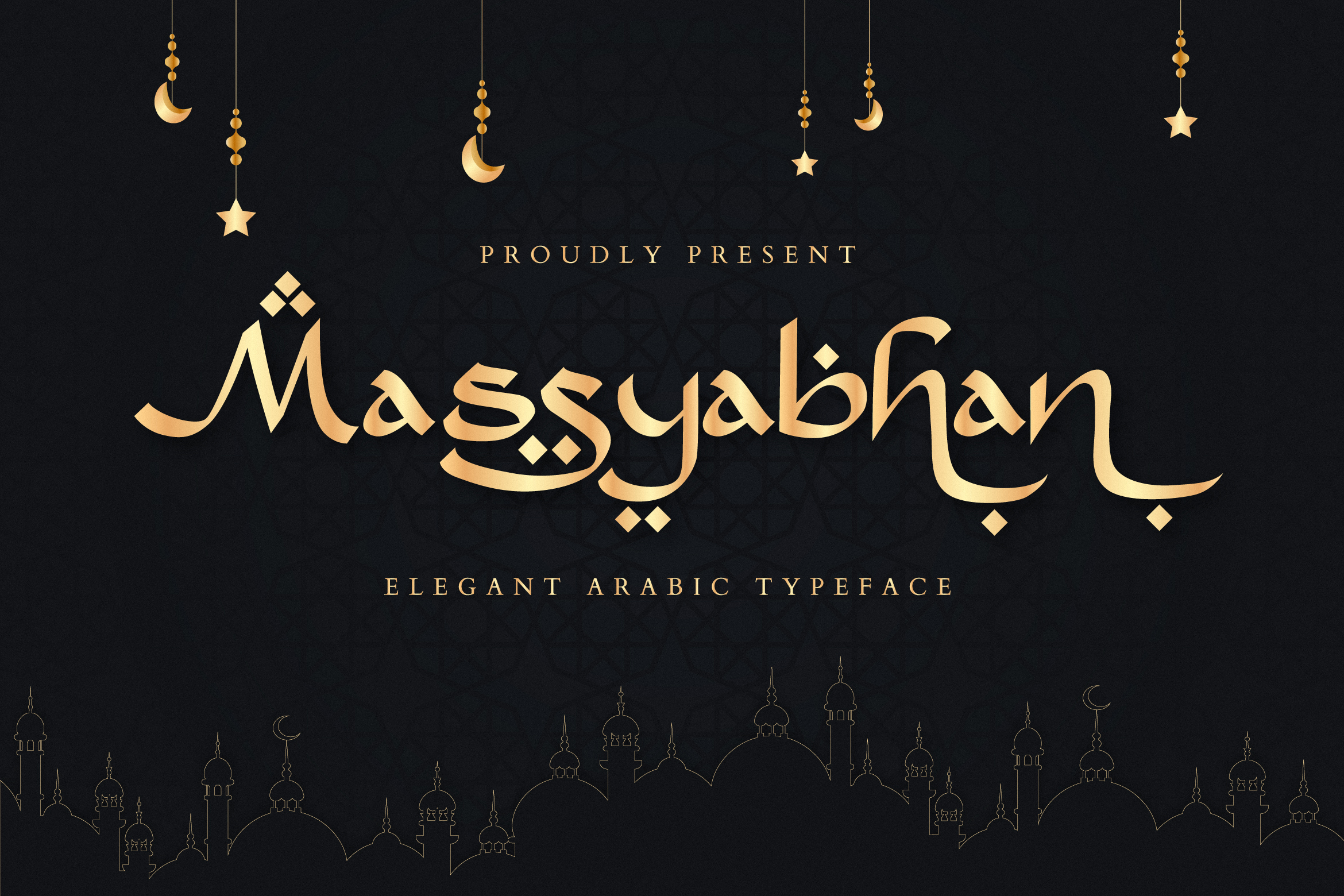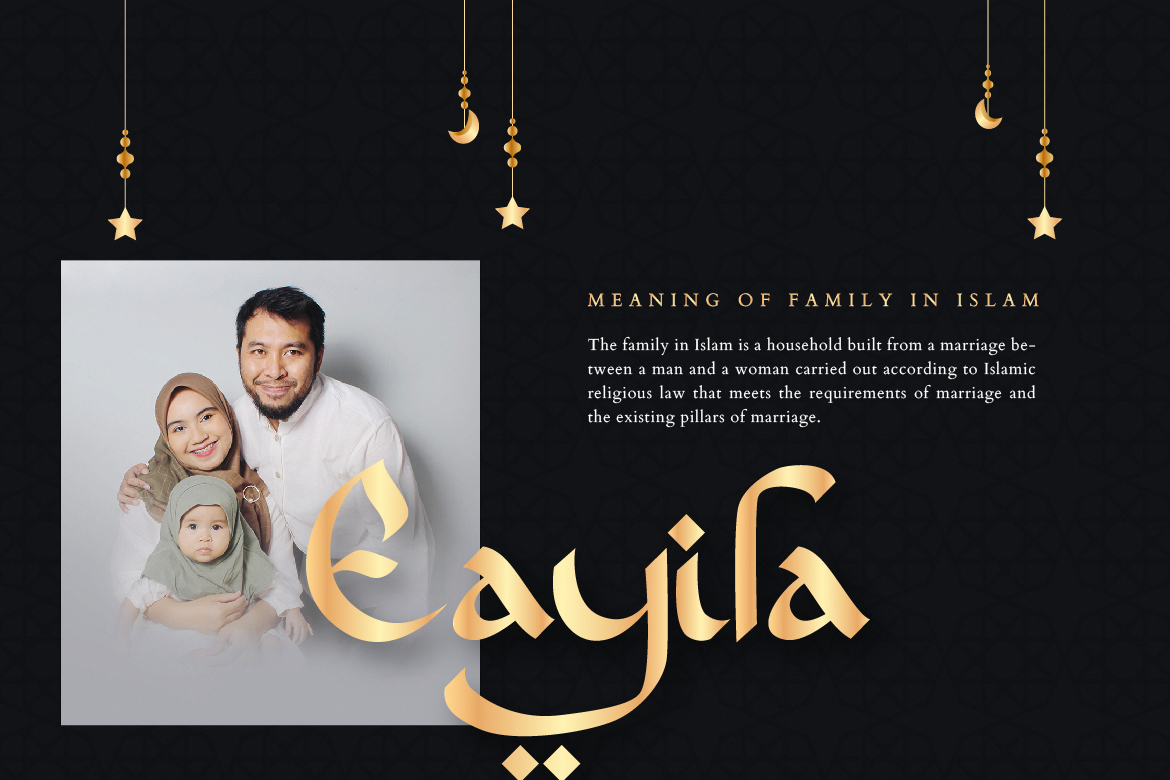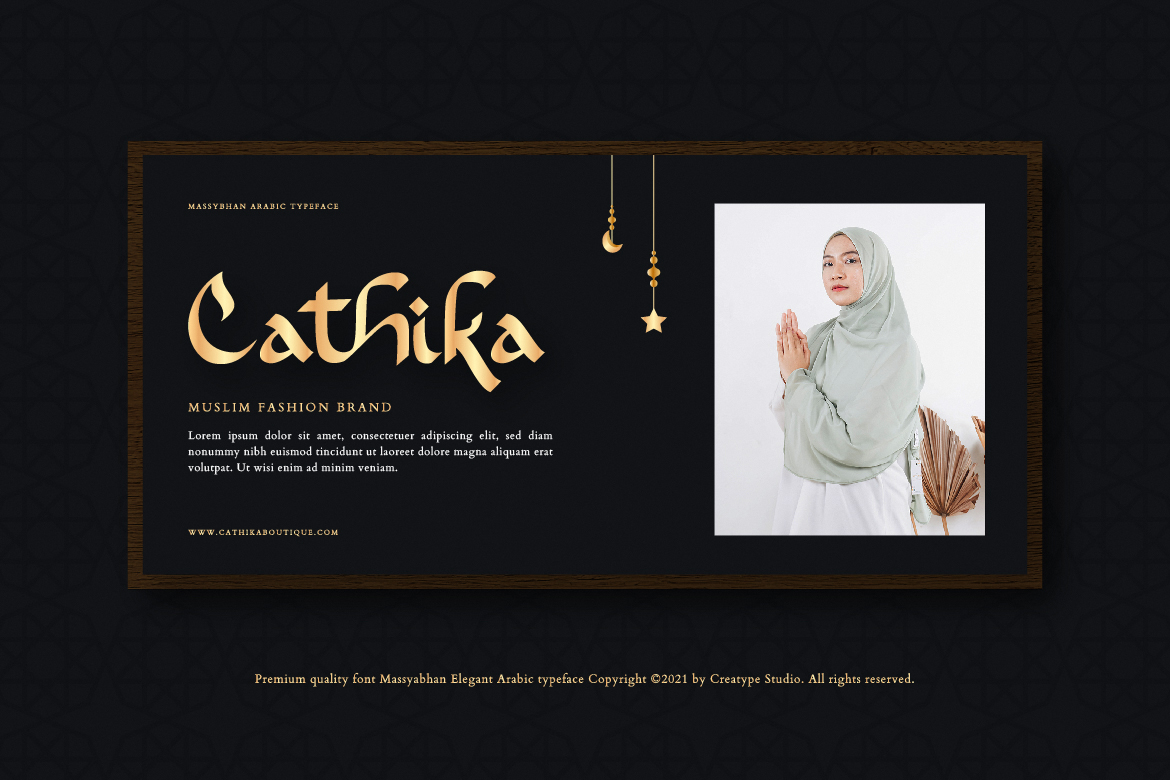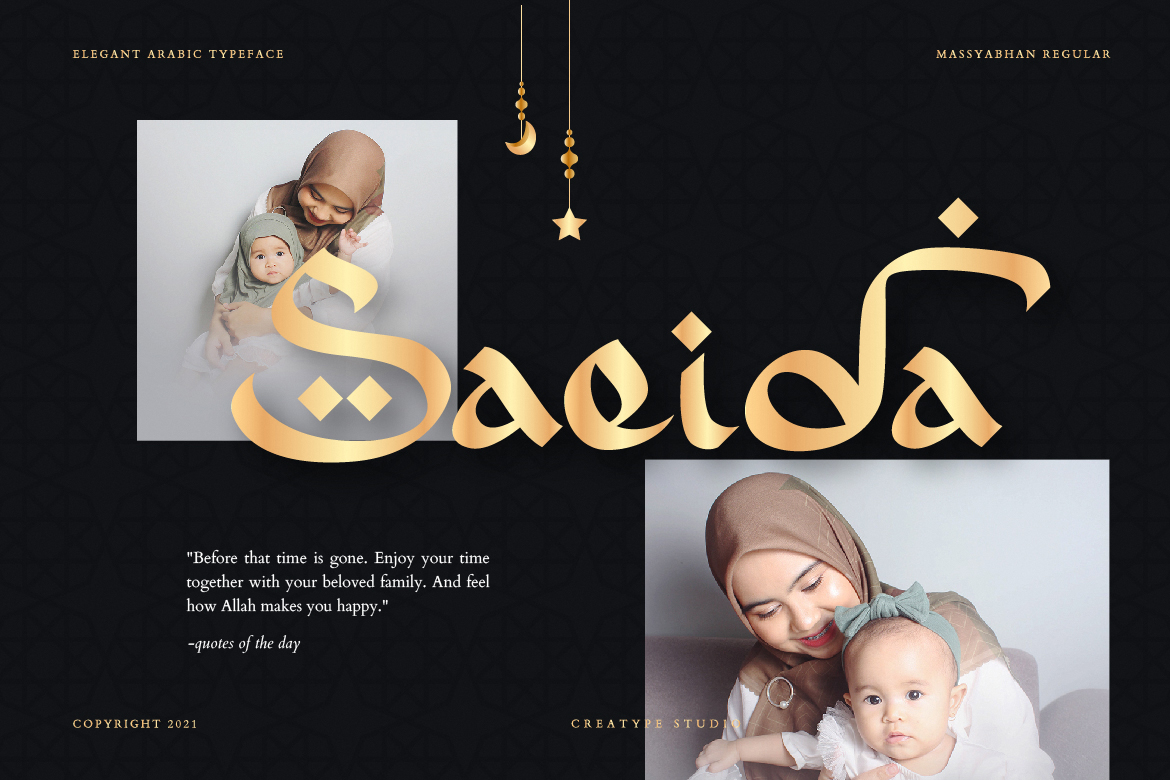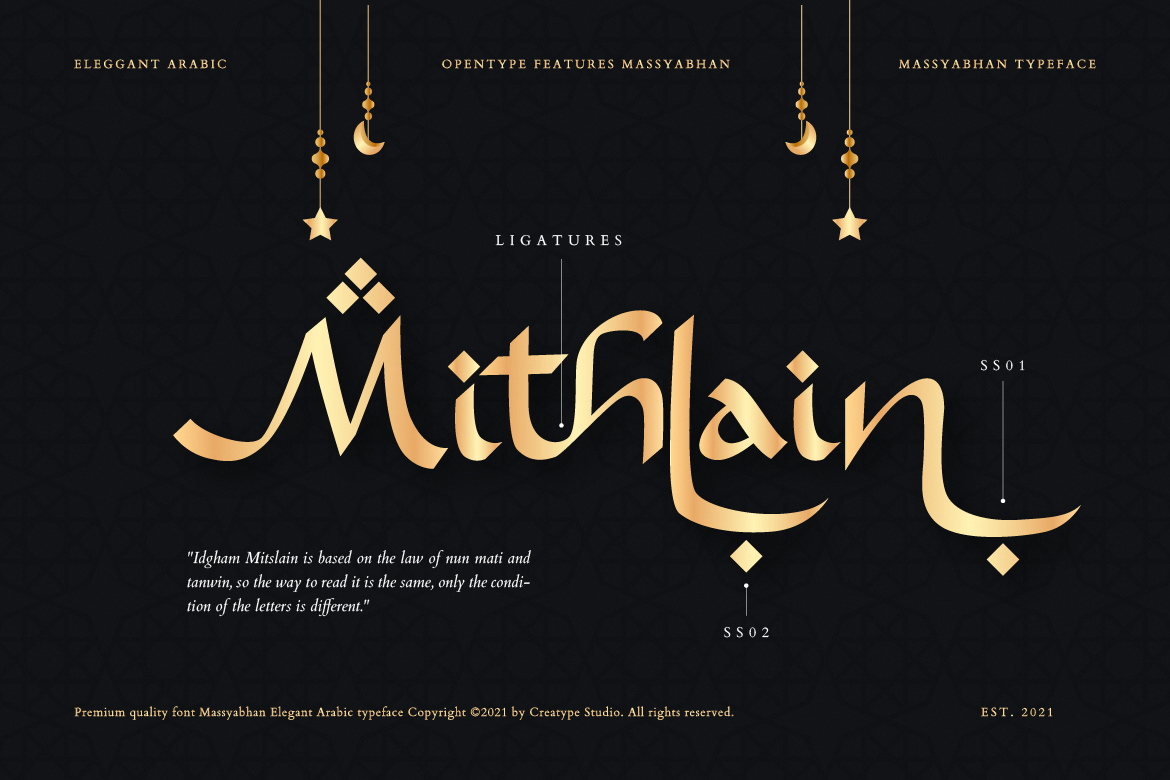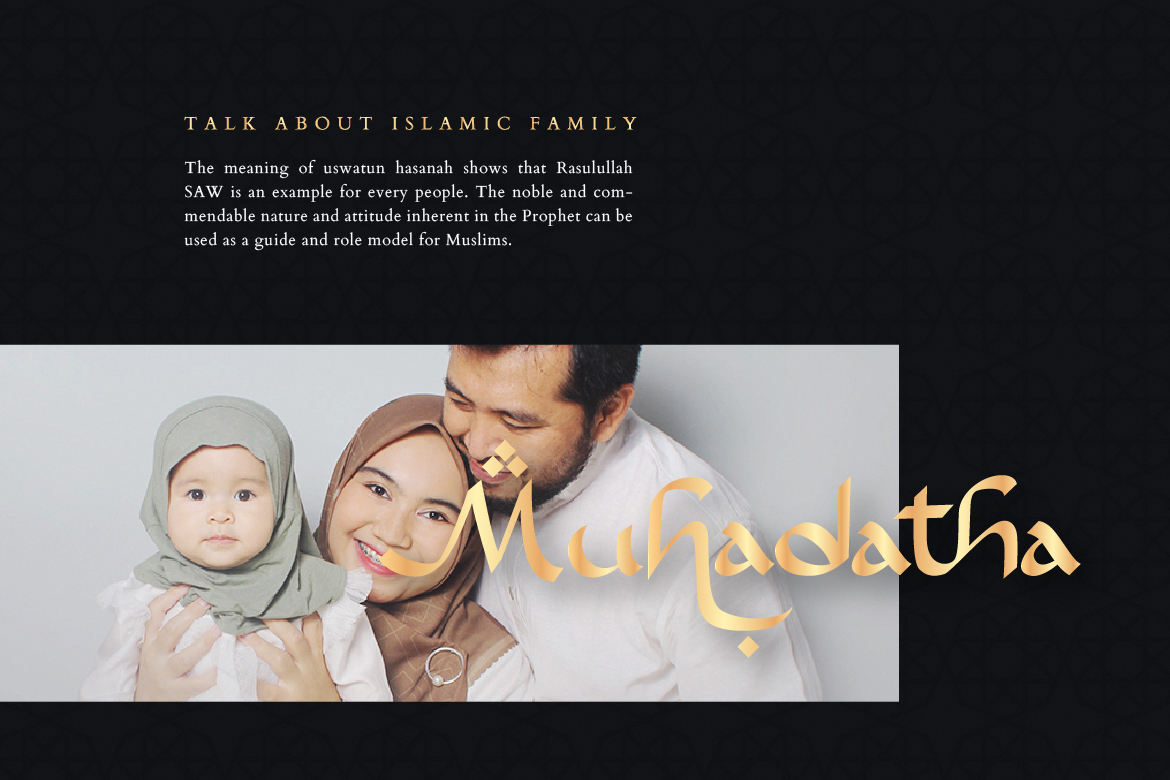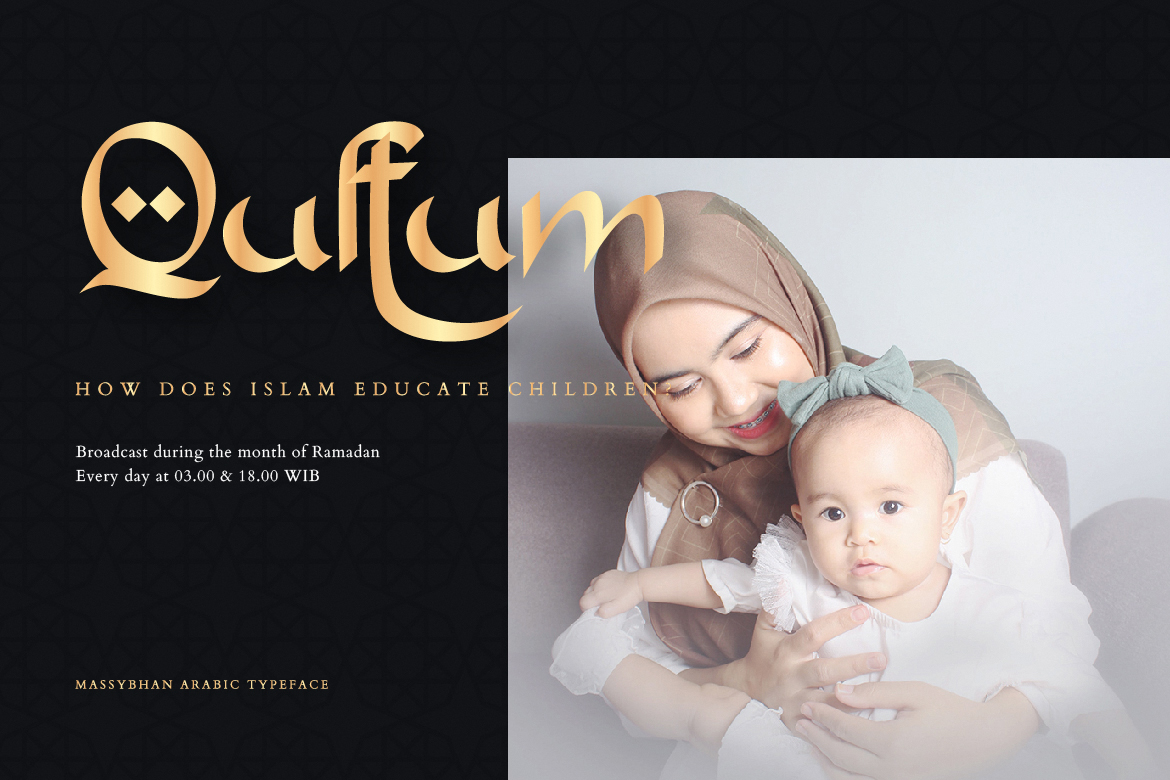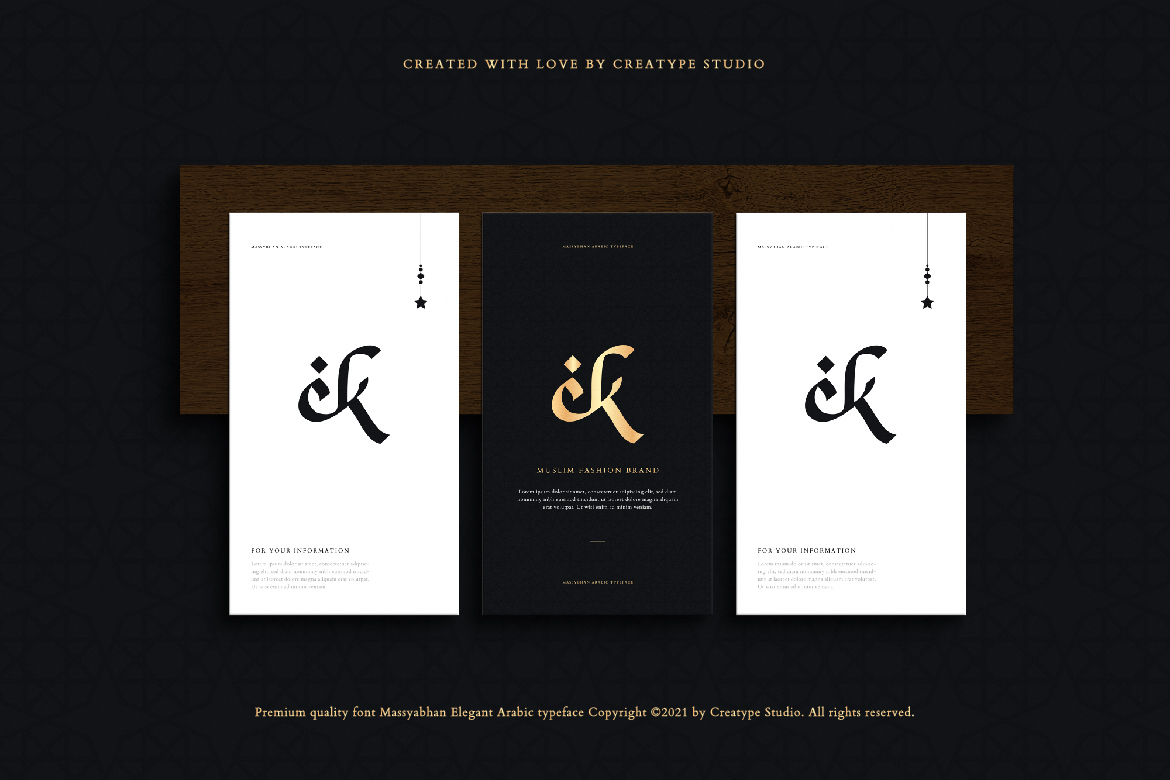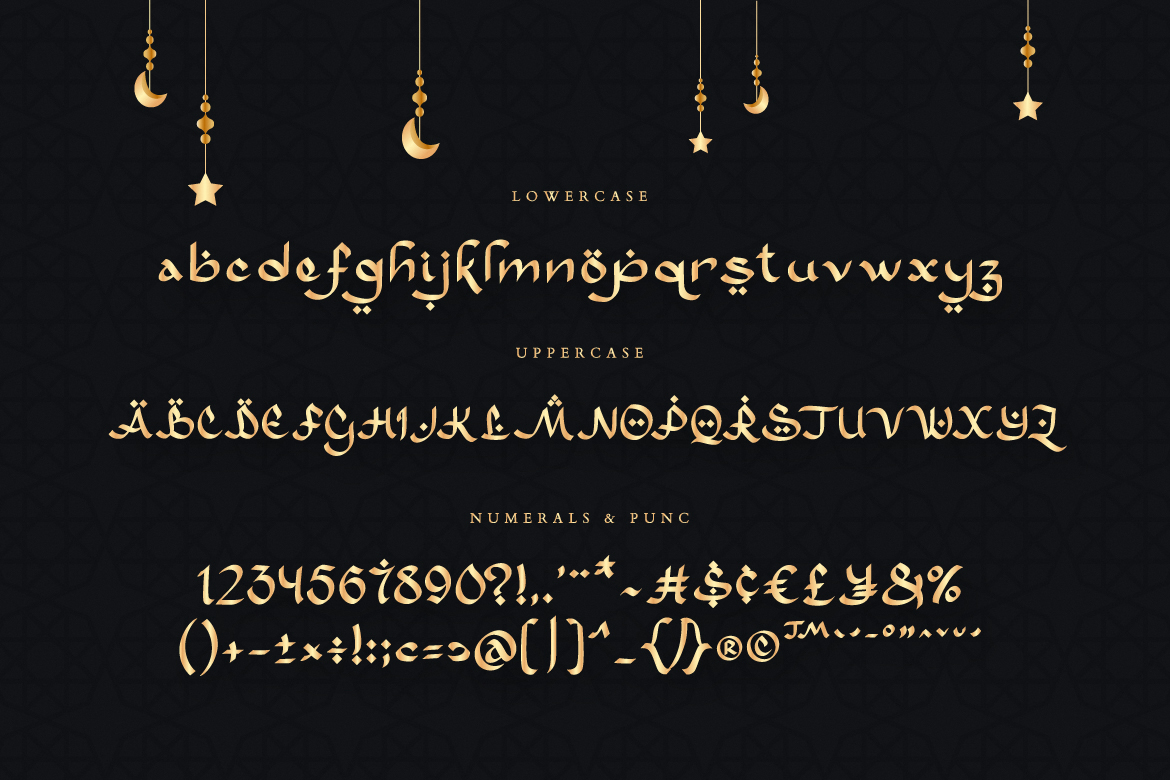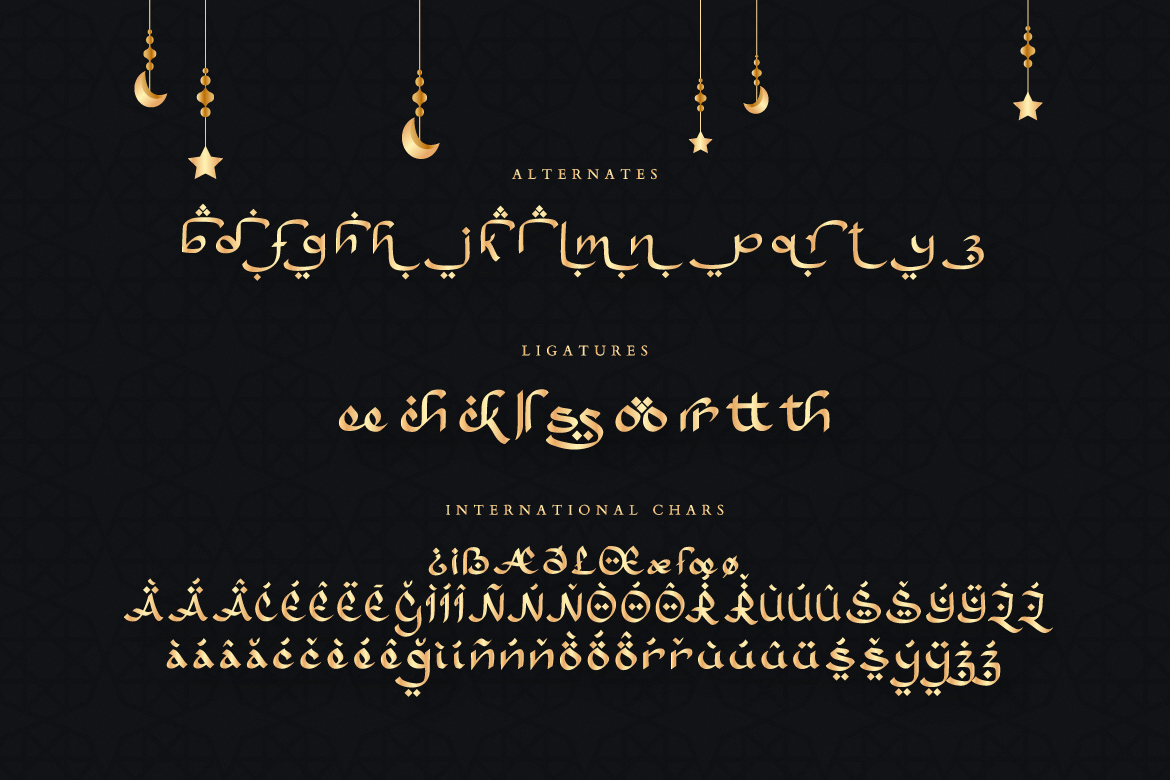
Massyabhan Elegant Arabic
Massyabhan is an elegant Arabic typeface. This font has a different shape from the others. Massyabhan is perfect for all your big projects so that it makes your big projects look elegant and unique from the others. there are many features for you to be more creative in your creation.
Massyabhan is perfect for branding projects, logo, wedding designs, social media posts, advertisements, product packaging, product designs, label, photography, watermark, invitation, stationery and any projects that need handwriting taste.